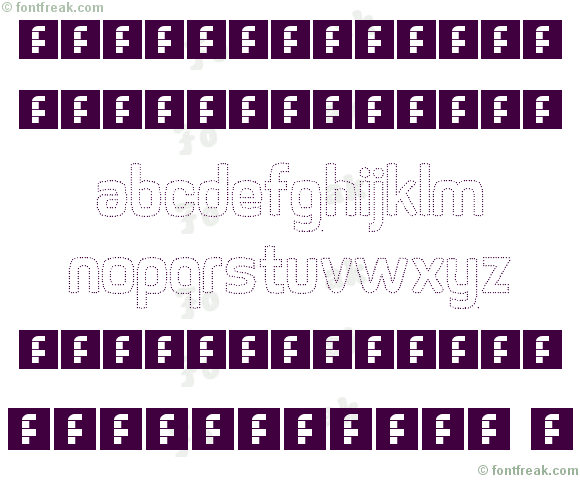
puncture Regular
About Puncture
Puncture is a captivating display font designed by David Neustadt, categorized as a decorative typeface that exudes a playful and modern appeal. With its unique dotted design, Puncture showcases a light stroke weight and minimal contrast, creating a whimsical and approachable feel. The spacing is thoughtfully balanced, enhancing readability while allowing the font's distinctive character to shine. This font is a true representation of contemporary design, making it an excellent choice for various creative projects.
Puncture's visual style lends itself well to a range of applications. It is particularly suited for eye-catching wedding invitations, where its playful nature can complement a joyful theme. Additionally, it works beautifully on movie posters, drawing attention and creating intrigue around film titles. Restaurant menus can also benefit from Puncture's unique flair, adding a touch of modernity that appeals to diners. Furthermore, this font can be an ideal choice for social media graphics, allowing content creators to craft engaging posts that stand out in crowded feeds.
What sets the Puncture font apart is its striking design that merges creativity with functionality. Its playful yet sophisticated aesthetic makes it versatile for various uses while ensuring that it remains memorable and impactful. For those seeking a Puncture font free download, this typeface is a delightful addition to any designer's toolkit, promising to elevate their work with its unique charm.